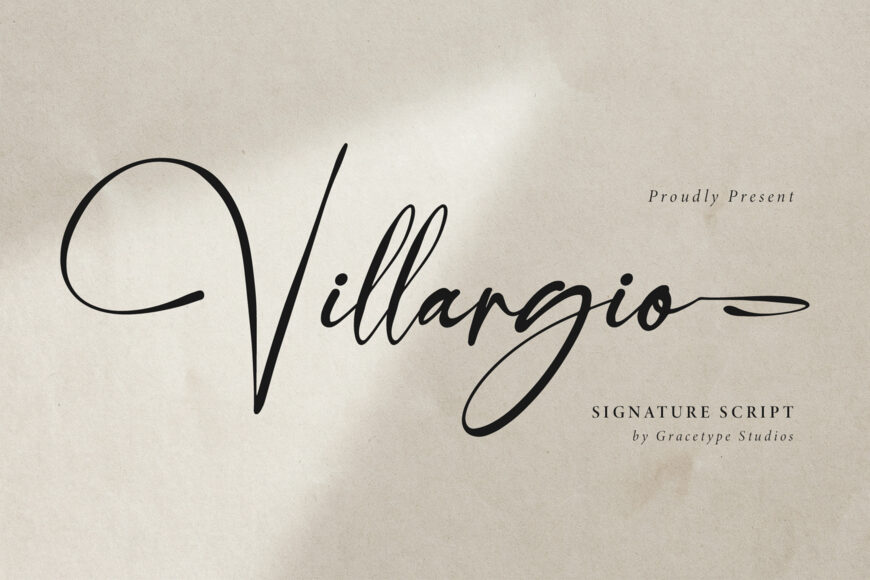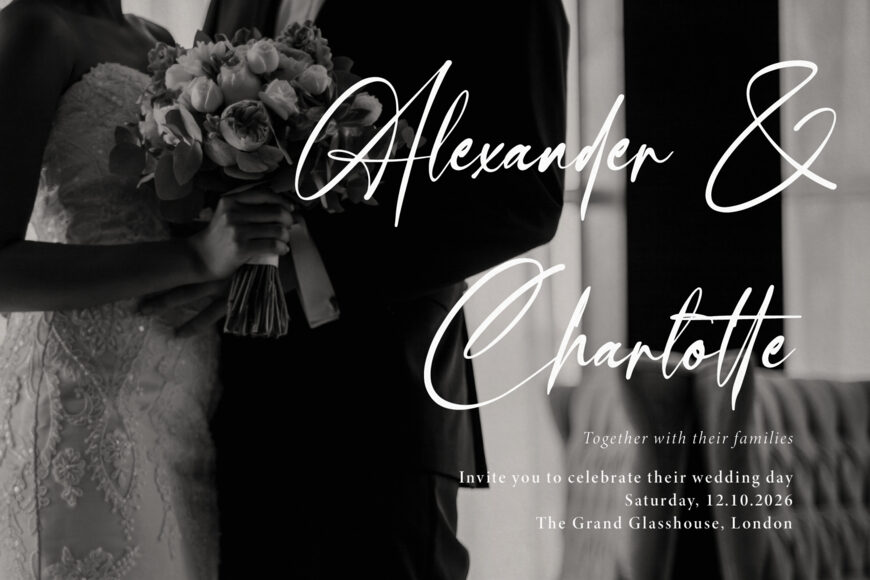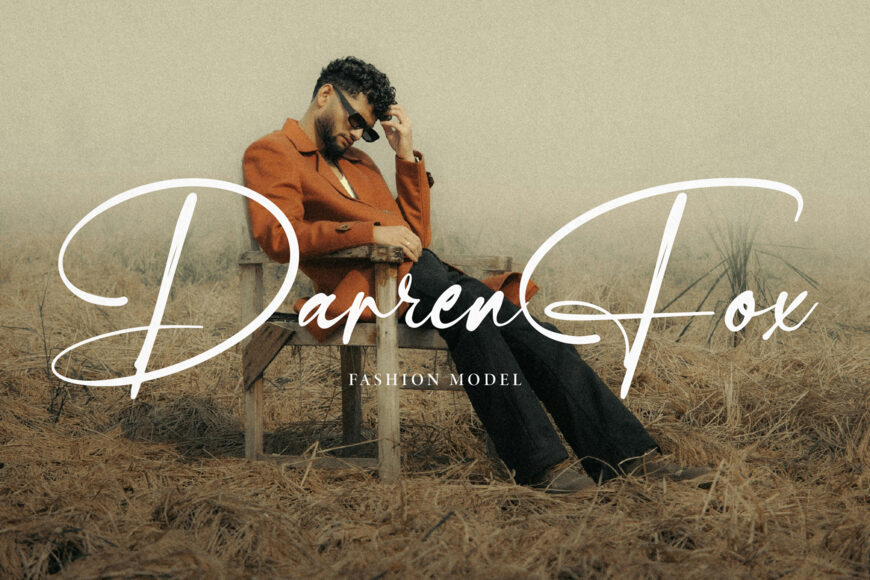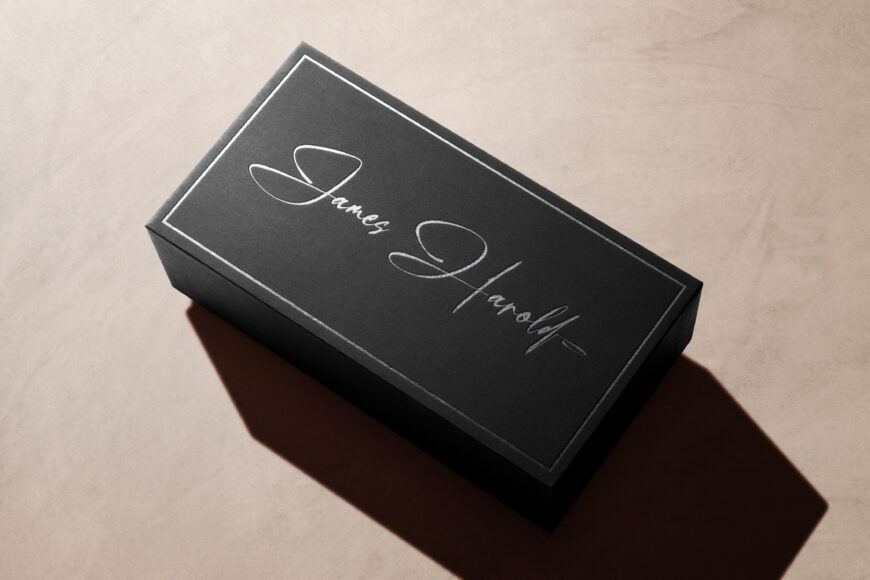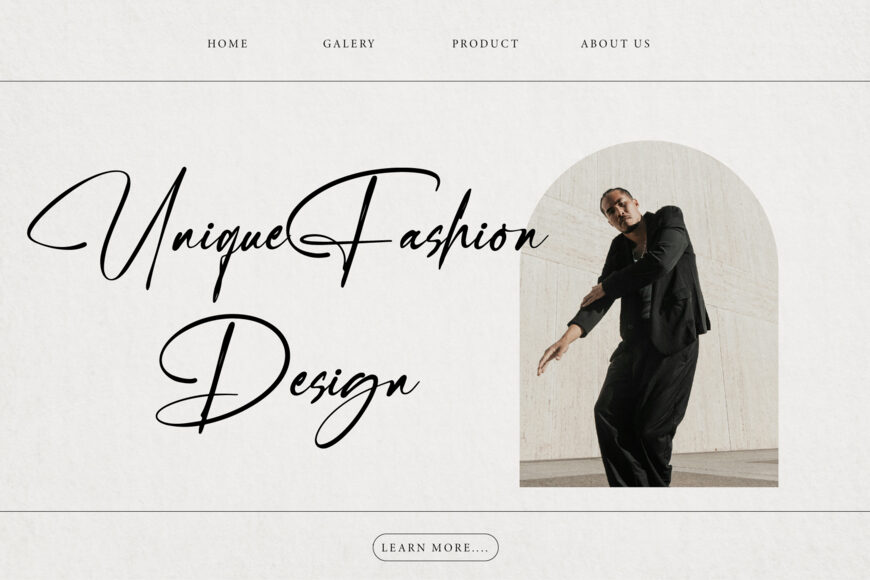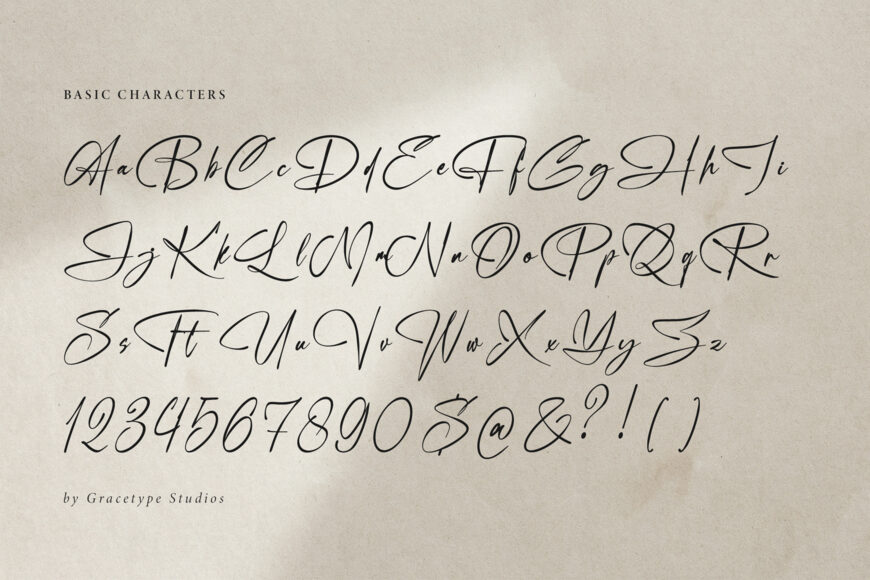
Villargio Font
Elevate your visual identity with Villargio, an exquisite signature script font! Crafted with sweeping fluid loops, dramatic ascenders, and a effortless handwritten rhythm, this elegant calligraphic typeface captures the sophisticated touch of an authentic personal signature.
Whether you’re designing luxury brand logos, high-end packaging, wedding invitations, boutique stationery, photography watermarks, or chic editorial layouts, Villargio brings an aura of grace, luxury, and bespoke style to every word.